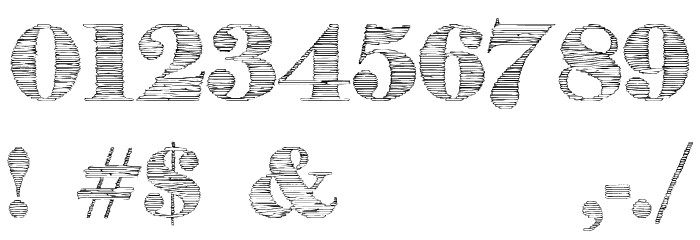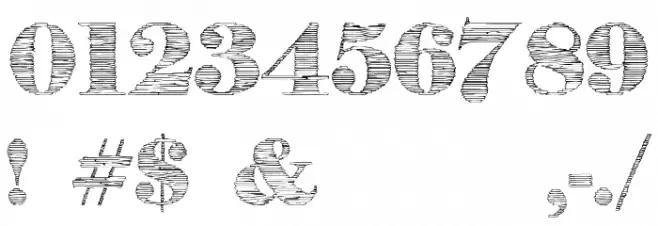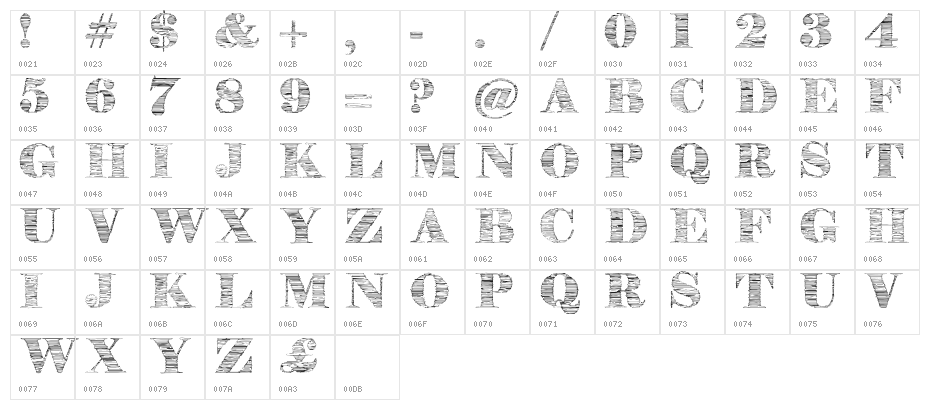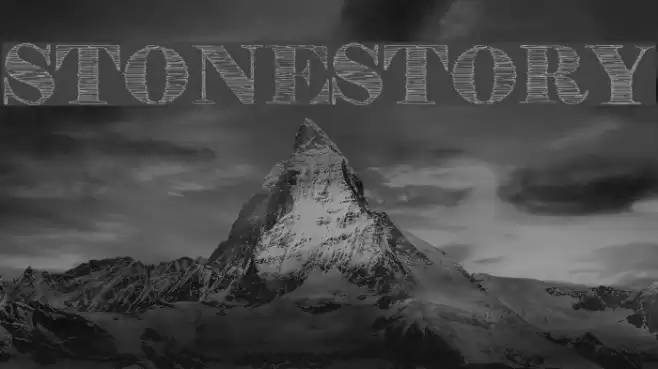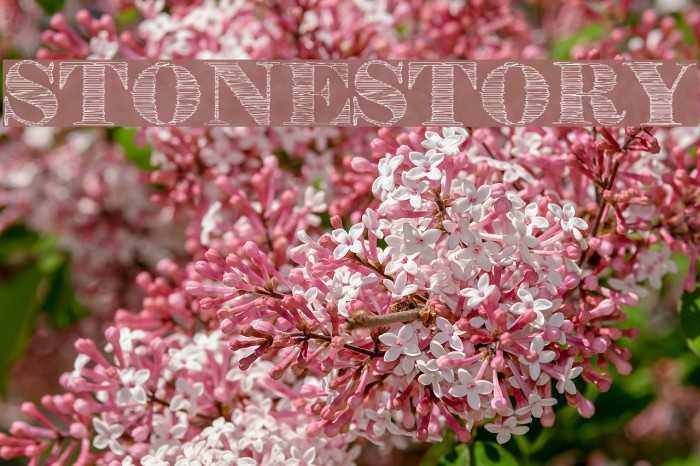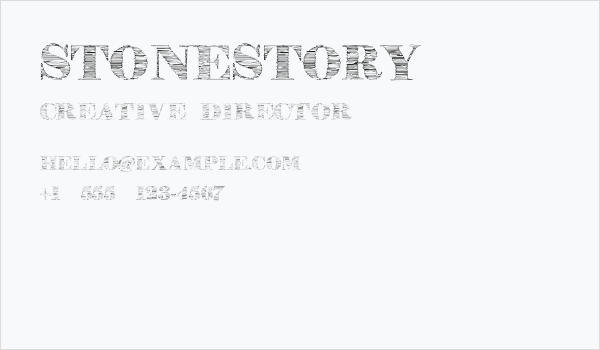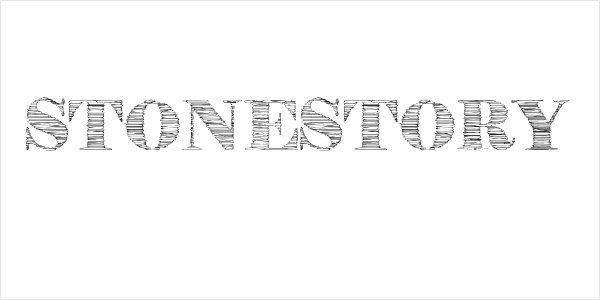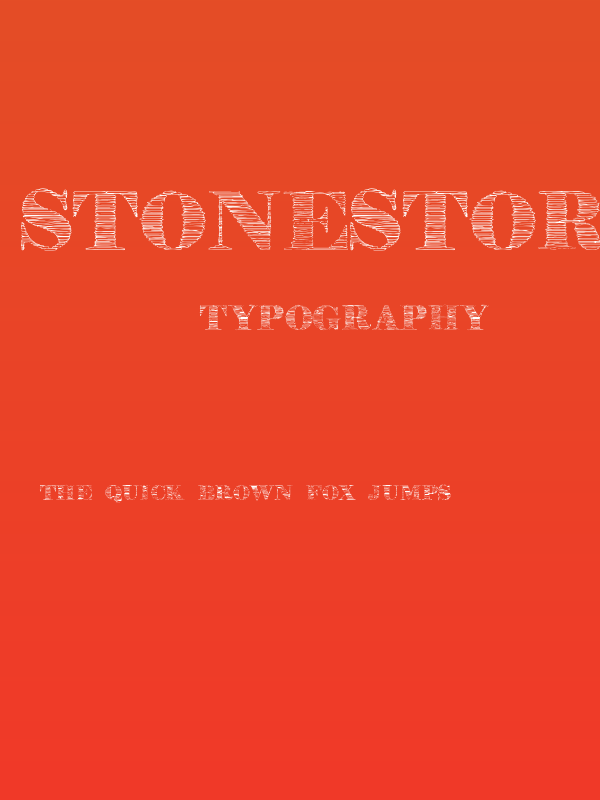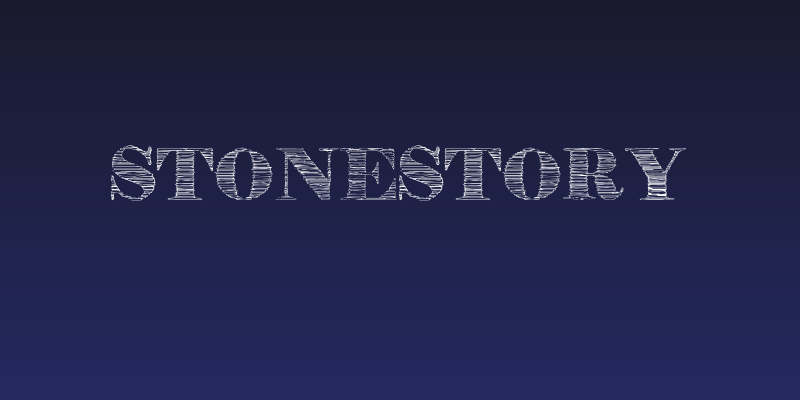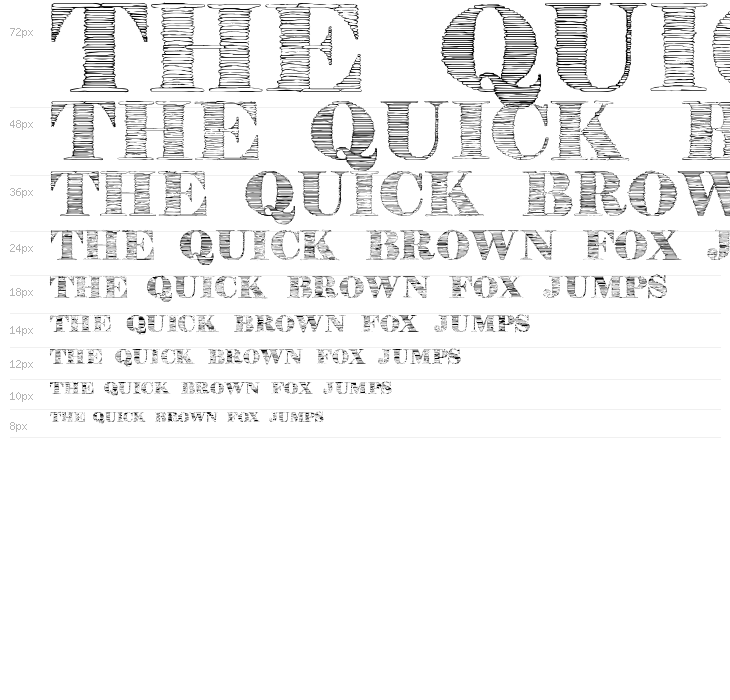
StoneStory Font
StoneStory Description
This font features a unique, textured design that mimics the appearance of stone or carved rock. Each character is filled with horizontal lines, creating a rugged and tactile effect. The uppercase and lowercase letters maintain a consistent style, with bold, serifed edges that enhance the stone-like appearance. Numbers and special characters are equally detailed, ensuring a cohesive look across all text elements. The font's distinct texture makes it ideal for projects that require a natural or earthy aesthetic, adding a touch of rustic charm to any design.
| Proposed Projects | Ideal for branding, posters, and designs that require a natural or rustic theme. |